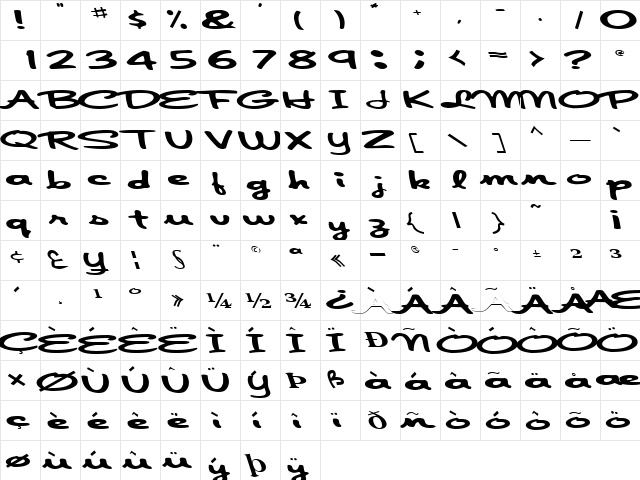
Foote Regular
Design Context for Foote Typeface
Foote is a composed and adaptable typeface that performs quietly and consistently across a wide range of design contexts.